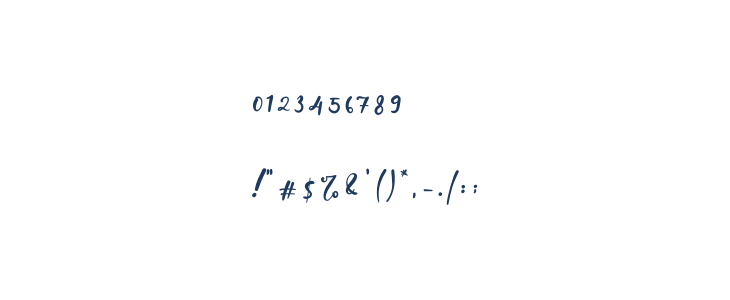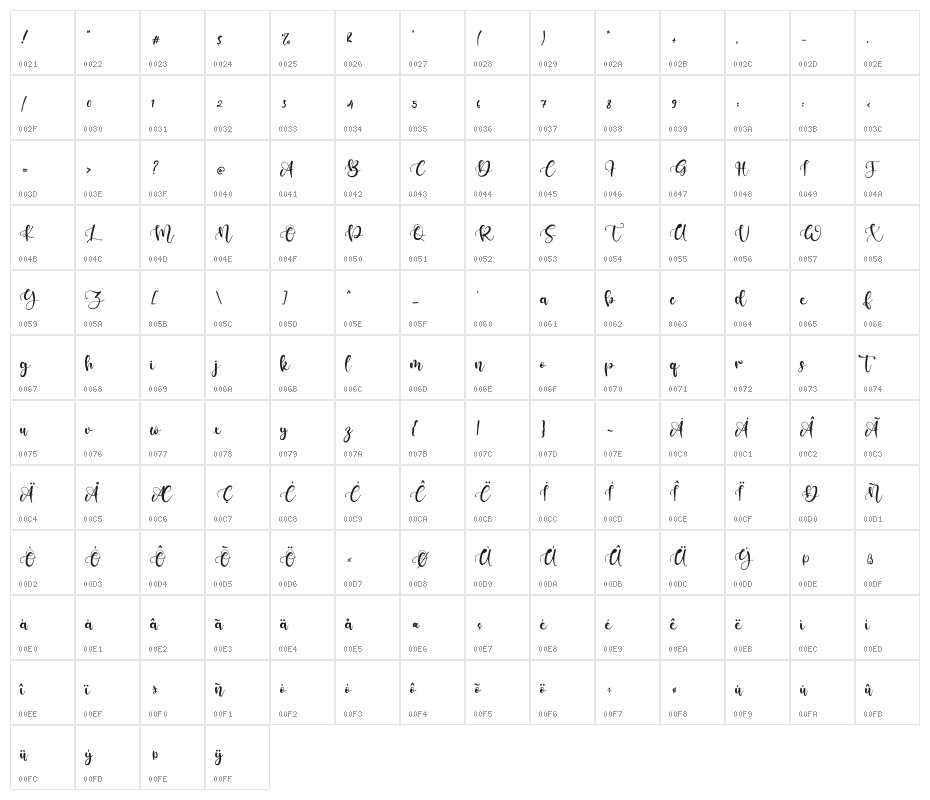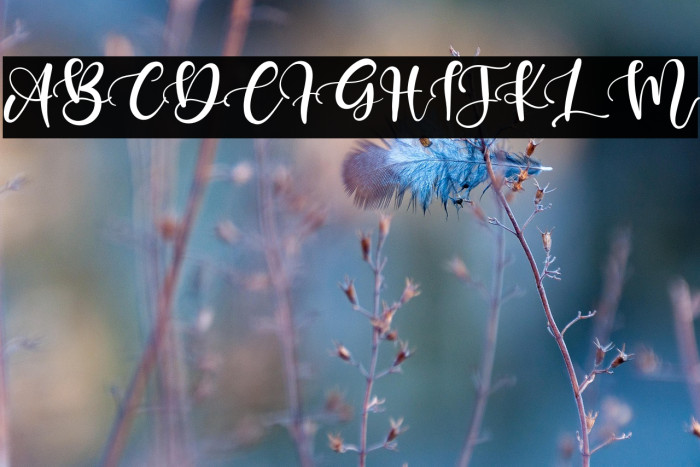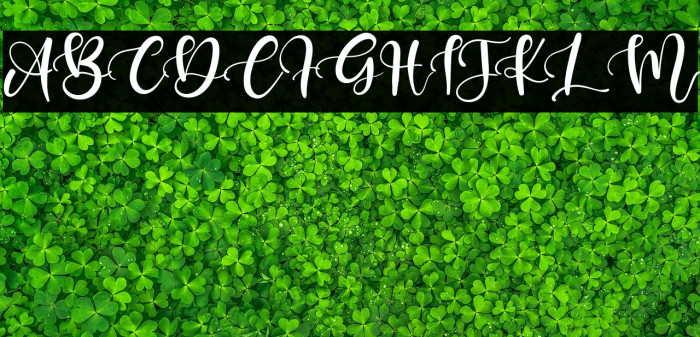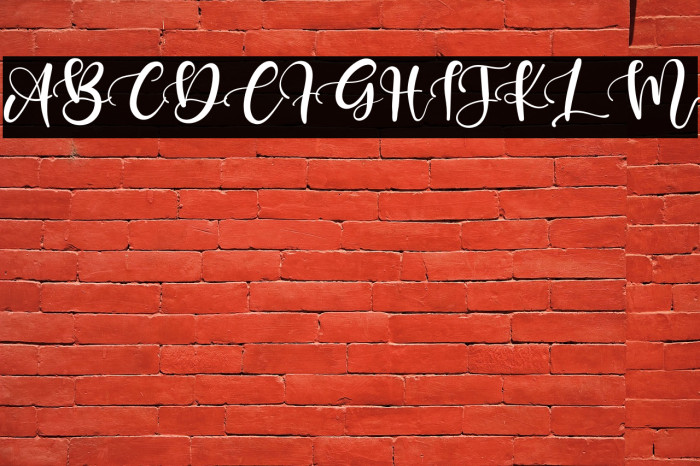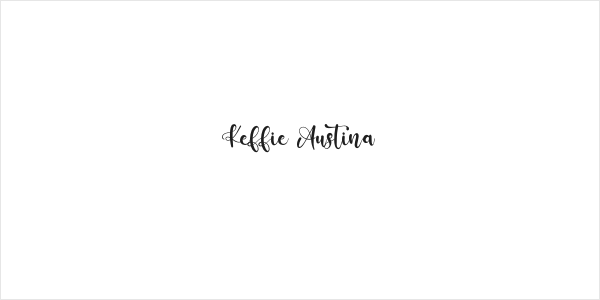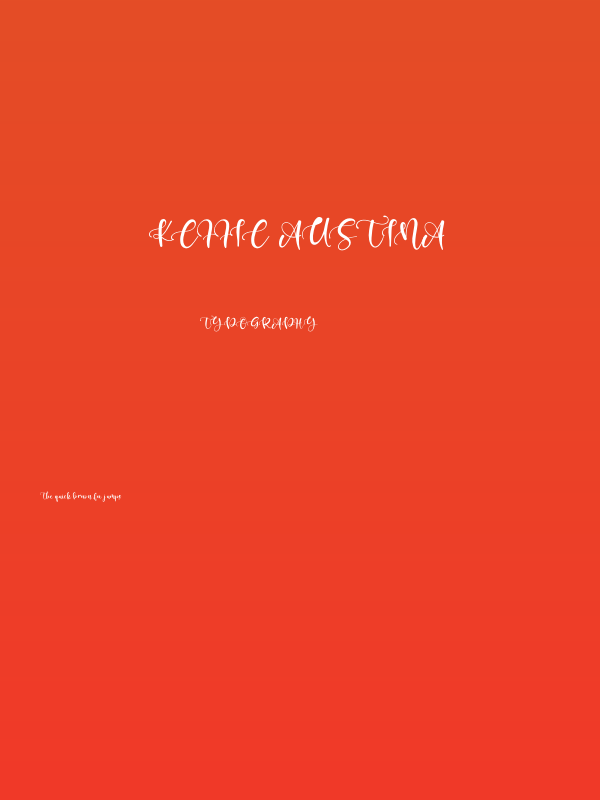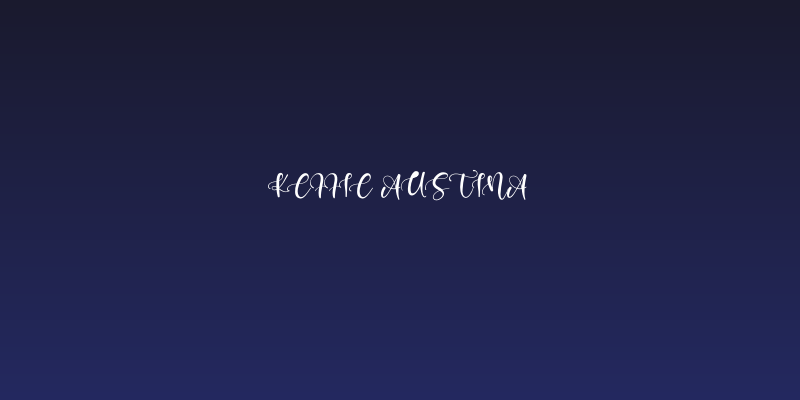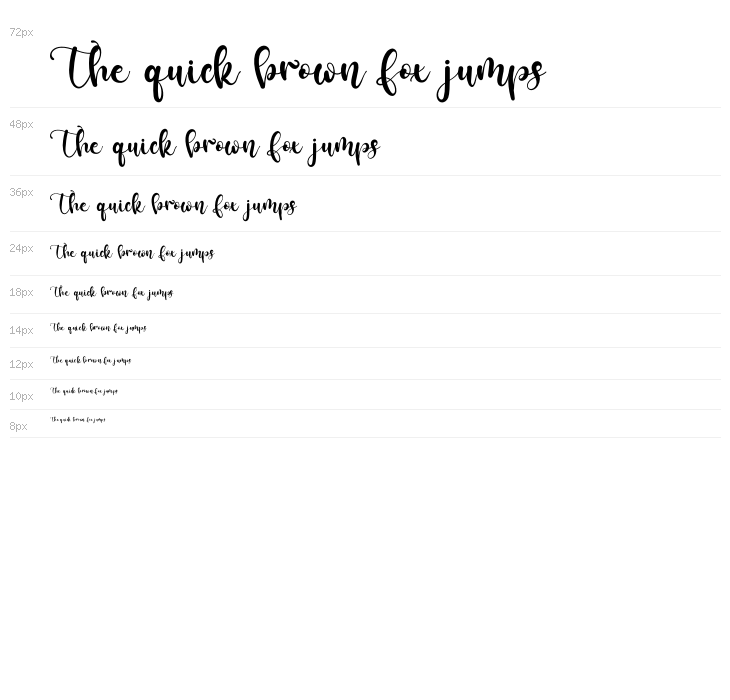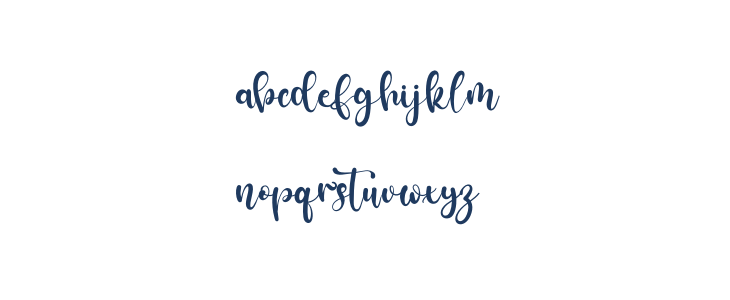
Keffie Austina Font
Keffie Austina Description
This font features an elegant, flowing script style with intricate loops and flourishes, giving it a sophisticated and artistic appearance. The uppercase letters are particularly ornate, with each character exhibiting unique swirls and curves that enhance its decorative nature. The lowercase letters maintain a cohesive style, with smooth connections and a consistent baseline, making it suitable for both formal and creative applications. The numerals are clear and legible, while the special characters complement the overall aesthetic with their stylish design. This font is ideal for projects that require a touch of elegance and creativity.
Use CaseLogos, Invitations, Decorative text
Proposed ProjectsWedding invitations, greeting cards, branding, and logo design.